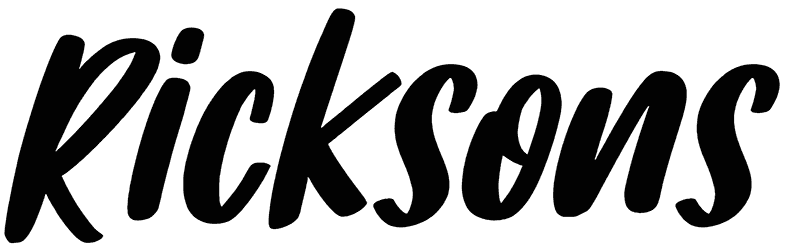
Ricksons Font
If you are working on a modern and urban design, creating cool and casual words can help you to impress many people, and this script font is able to do it. The natural letterform of this handwritten font is what your design needs to become friendly. Try Rickson’s font for your next masterpiece and surprise your followers.